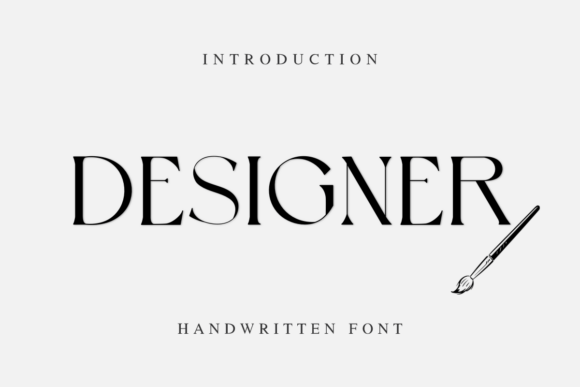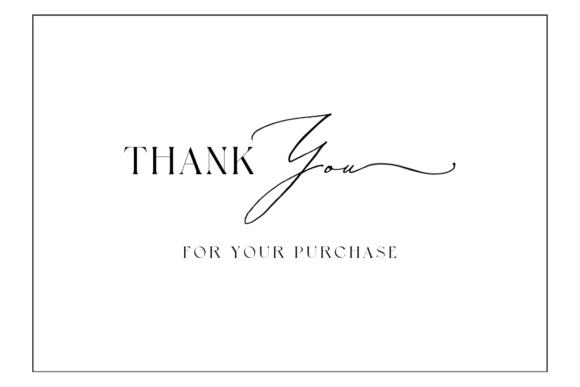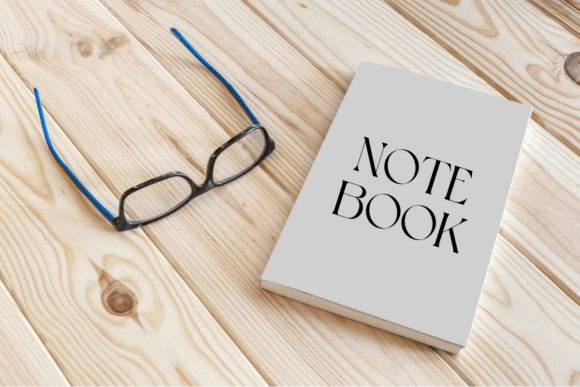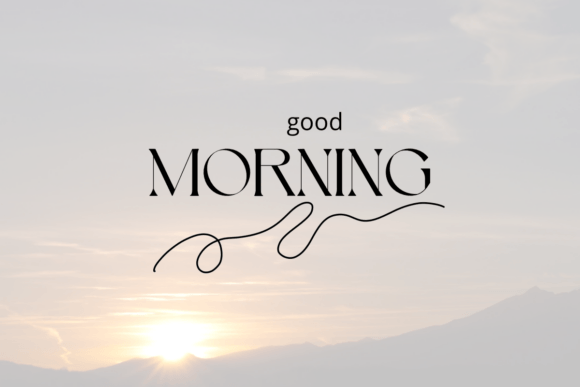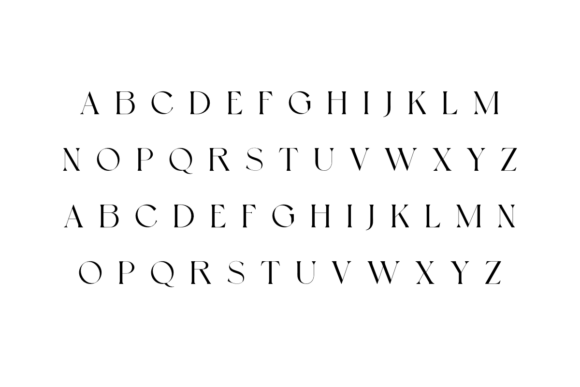
Bring Your Designs to Life with the Perfect Font
Have you ever sat down with a blank page or a blank screen, feeling inspired to create something beautiful, but struggling to find the perfect font to match your vision? I know I have! There’s something special about the feeling of writing or typing with a font that feels like an extension of your own handwriting. For me, that font is Designer Font – a gorgeous, handwritten font that’s perfect for anything from taking notes to making greeting cards.
Whether you’re a seasoned designer or just starting out, the Designer Font is a valuable addition to your toolkit. With its elegant, cursive style, it’s perfect for adding a touch of personality to your designs, from social media posts to banners and beyond. And the best part? It’s incredibly versatile, so you can use it for anything from content to merchandise to stationery.
Key Features of “Designer Font”
- Unique Characteristics: The font features a unique blend of modern and vintage elements, with subtle texture and ornamentation, making it ideal for luxury and high-end branding.
- Kerning and Ligatures: The font includes advanced kerning and ligature pairs, ensuring smooth text flow and optimal readability, even in complex typography.
Designer Font Review
I’ve had the chance to work with Designer Font on a recent project, and here’s my honest take.
- The font’s clean lines and minimalist aesthetic make it perfect for modern designs.
- It’s highly versatile and can be used for a wide range of applications, from logos to body text.
- The font’s ligatures and kerning are well-designed, resulting in a professional and polished look.
- The font is available in a range of weights and styles, giving designers plenty of options for customization.
- The font can appear a bit too minimalist for some designs, lacking a bit of personality.
- The font’s lack of boldness can make it difficult to use for headings or titles that need to stand out.
- The font’s italics can appear a bit uneven, which may detract from the overall design.
Overall, I’d say Designer Font is a solid choice for designers looking for a clean and modern typeface. While it may have some limitations, its versatility and professional look make it a great option for a wide range of projects.
Getting the Most Out of Designer Font
Here are some tips for getting the most out of Designer Font:
1. Experiment with different font sizes and styles.
2. Combine Designer Font with other fonts for a unique look.
3. Use Designer Font for headings and titles to create visual hierarchy.
Designer Font is commonly used in:
1. Branding and identity design.
2. Print and digital marketing materials.
3. Creative and artistic projects.
Alternatives to “Designer Font” for Designers
1. Museo Font
Museo Font is a modern, elegant sans-serif font designed by Jos Buivenga. It is ideal for use in digital and print media, such as logos, brochures, and websites. Museo Font has a clean and sophisticated look, making it perfect for high-end branding and design projects. Compared to Designer Font, Museo Font has a more refined and precise feel, making it suitable for a wide range of applications.
Open Sans Font is a popular, highly legible sans-serif font designed by Steve Matteson. It is perfect for use in digital media, such as websites, apps, and digital publications. Open Sans Font has a clean and modern look, making it ideal for user interface design and digital branding. Compared to Designer Font, Open Sans Font is more versatile and suitable for a wide range of digital applications.